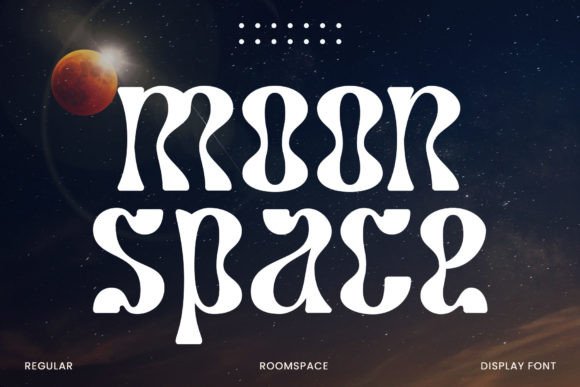
Journey into the cosmos with Moonspace Font, a celestial display sans-serif font that will transport your designs to a whole new realm. Its wave-like characters, reminiscent of shimmering starlight, will infuse your projects with an ethereal and captivating allure.
Moonspace Font is not just another font; it's an interstellar voyage, inviting you to explore the vast expanse of creativity. Its harmonious letter proportions and meticulous crafting ensure impeccable legibility, making it a versatile companion for a myriad of designs. From sleek and modern layouts to traditional and timeless creations, Moonspace Font seamlessly adapts, adding a touch of cosmic elegance wherever it goes.
The sky's the limit with Moonspace Font. Craft awe-inspiring logos that shimmer like constellations, captivating headlines that dance across the page like shooting stars, and enchanting posters that transport viewers to a realm of infinite wonder. Unleash your imagination and let Moonspace Font be your celestial guide, propelling your designs to celestial heights. Embrace the cosmic inspiration and watch your creations take on a life of their own. As you embark on this typographic odyssey, you'll discover a universe of possibilities, where every letter becomes a celestial entity, carrying your message through the vastness of digital space.
Moonspace Font is more than just a collection of characters; it's a gateway to a realm of boundless creativity, where the ordinary becomes extraordinary. Experience the cosmic connection between your designs and the cosmos, where the written word takes on a new dimension. With Moonspace Font as your celestial muse, your designs will transcend the mundane and soar among the stars. Prepare to be mesmerized as your creations ignite imaginations and leave an indelible mark on the digital landscape.
Immerse yourself in the boundless creativity of Moonspace Font and embark on a typographic journey like no other. Its celestial charm will transform your designs into cosmic masterpieces, leaving your audience spellbound by the harmony of the universe. Seize the opportunity to elevate your projects to new heights, where every word becomes a constellation of brilliance. Embrace the celestial inspiration and let Moonspace Font guide you towards typographic enlightenment.